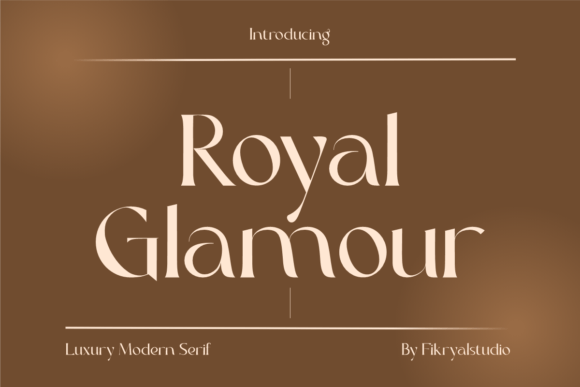
Journey into the realm of exquisite typography with the Royal Glamour Font, an elegantly crafted serif masterpiece. Its slender letterforms dance across the page like a delicate ballet, captivating your audience with their grace and poise. Designed by the renowned Fikryal Studio, this font epitomizes sophistication, bringing a touch of timeless luxury to any creative endeavor.
As a member of the serif family, Royal Glamour exudes a sense of heritage and refinement, making it the perfect choice for high-end branding, editorial design, and upscale packaging. Its tall and slender structure lends an air of regal elegance, while its delicate curves and subtle contrast add a touch of warmth and charm.
With Royal Glamour, your words will come alive, commanding attention and leaving a lasting impression on your readers. Its versatile nature allows it to seamlessly adapt to a wide range of projects, from minimalist websites and sleek logos to luxurious invitations and captivating marketing materials.
Indulge in the splendor of Royal Glamour and elevate your creative vision to new heights. Embrace the allure of timeless beauty and let your words shine with a touch of royalty. Transform your designs into masterpieces that exude sophistication and captivate the hearts of your audience.